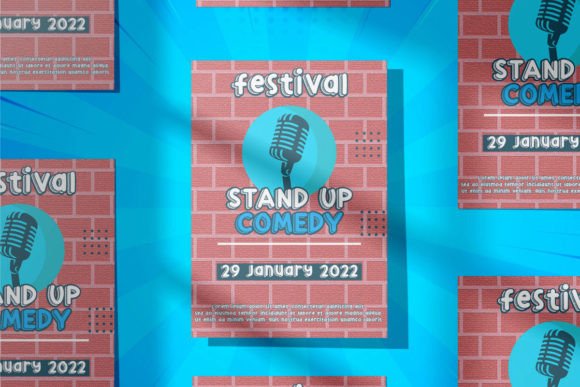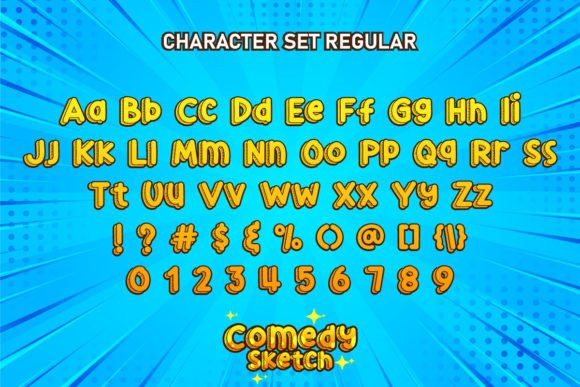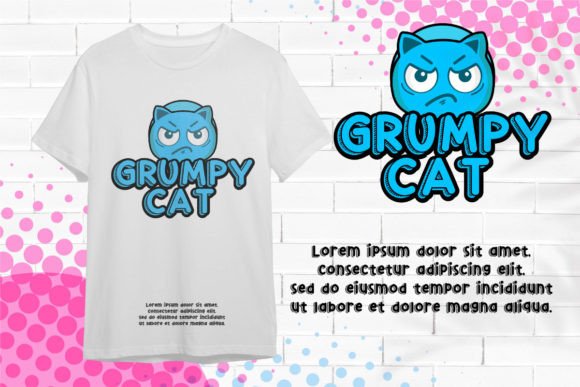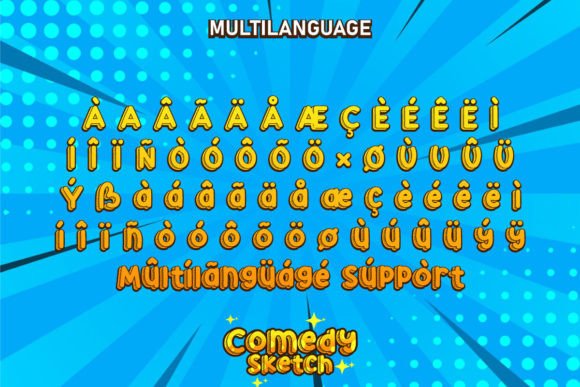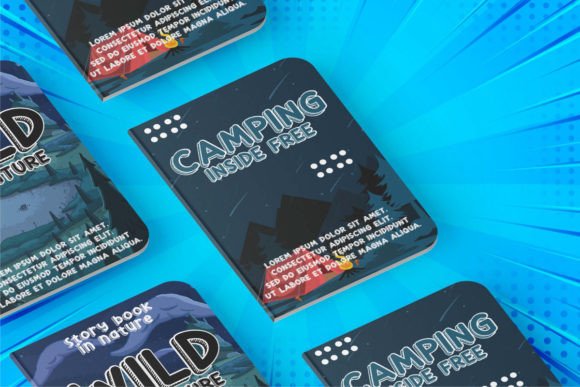
The Comedy Sketch Font: Adding a Dash of Whimsy to Your Designs
I’ll never forget the time I was working on a children’s book project, and my client asked me to create a title page that would make kids giggle. I scoured the internet for the perfect font, but nothing seemed quite right. That was until I stumbled upon the Comedy Sketch font. Its bold, playful letterforms and rounded edges instantly brought a smile to my face. I knew right then and there that it was the perfect fit for the project.
So, what makes Comedy Sketch so special? Here are a few things I love about this font:
- ✨ Playful and fun: Comedy Sketch is the perfect font for designs that require a lighthearted touch. Its bold, exaggerated letterforms are sure to bring a smile to anyone’s face.
- ✅ Easy to read: Despite its playful nature, Comedy Sketch is surprisingly easy to read, even at smaller font sizes.
- 💕 Versatile: This font is perfect for a wide range of design projects, from children’s books and posters to advertisements and social media graphics.
Of course, no font is perfect, and Comedy Sketch has a few quirks to be aware of:
- 🤔 Limited use in formal designs: While Comedy Sketch is perfect for playful designs, it may not be the best fit for more formal projects, such as corporate logos or business cards.
- ⚠️ Some letters may appear a bit distorted: At very large or very small font sizes, some letters may appear a bit distorted or lose their clarity.
Comedy Sketch is an OpenType font that offers advanced features and glyphs. Here are a few tips for exploring these features:
- Stylistic alternates: Comedy Sketch offers stylistic alternates that allow you to switch between different font styles. To access these alternates, look for the “Stylistic Alternates” or “Font Style” option in your design platform.
- Glyphs: Comedy Sketch includes a range of glyphs that allow you to add extra flair to your designs. To access these glyphs, look for the “Glyphs” or “Character Map” option in your design platform.
Comedy Sketch was inspired by the world of cartoons and comics. Its designer, a passionate fan of animation and illustration, wanted to create a font that captured the playful, whimsical spirit of these beloved art forms. The result is a font that’s both fun and functional, perfect for designs that require a dash of personality.
| Font Name | Comedy Sketch Font |
| Author | RaisProject |